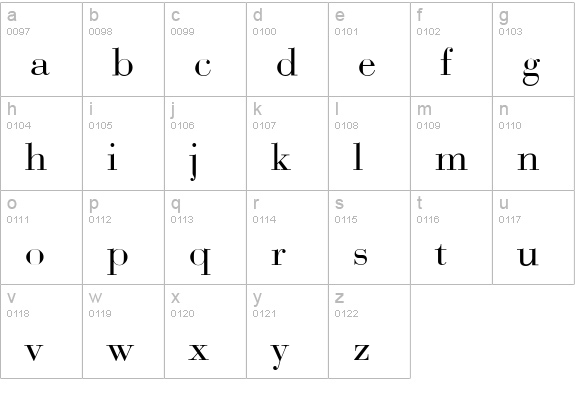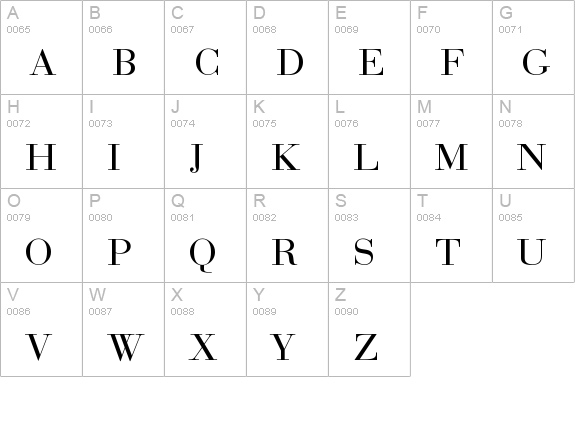
Bodoni-Display-Regular Font Details
Bodoni-Display-Regular is the standard, neutral variant in the Bodoni typeface family \xE2\x80\x94 well suited to general body text, paragraphs, and standard typographic work.
Bodoni Display Regular is a classic and elegant font that exudes sophistication and style. With its clean lines and graceful curves, this typeface is perfect for creating high-impact designs that demand attention. Whether used for headlines, titles, or promotional materials, Bodoni Display Regular adds a touch of timeless beauty to any project. The font's sleek and modern look makes it versatile and suitable for a wide range of design applications. From luxury branding to editorial layouts, Bodoni Display Regular brings a sense of refinement and class to any project. Its bold and authoritative presence commands the viewer's attention while maintaining a sense of elegance and grace. Best of all, Bodoni Display Regular is available for free download at FontsMarket.com. This allows designers and creatives to access this stunning typeface without any cost, making it a valuable resource for anyone looking to elevate their designs. Don't miss out on the opportunity to enhance your projects with the timeless beauty of Bodoni Display Regular – download it today and see the difference it can make!